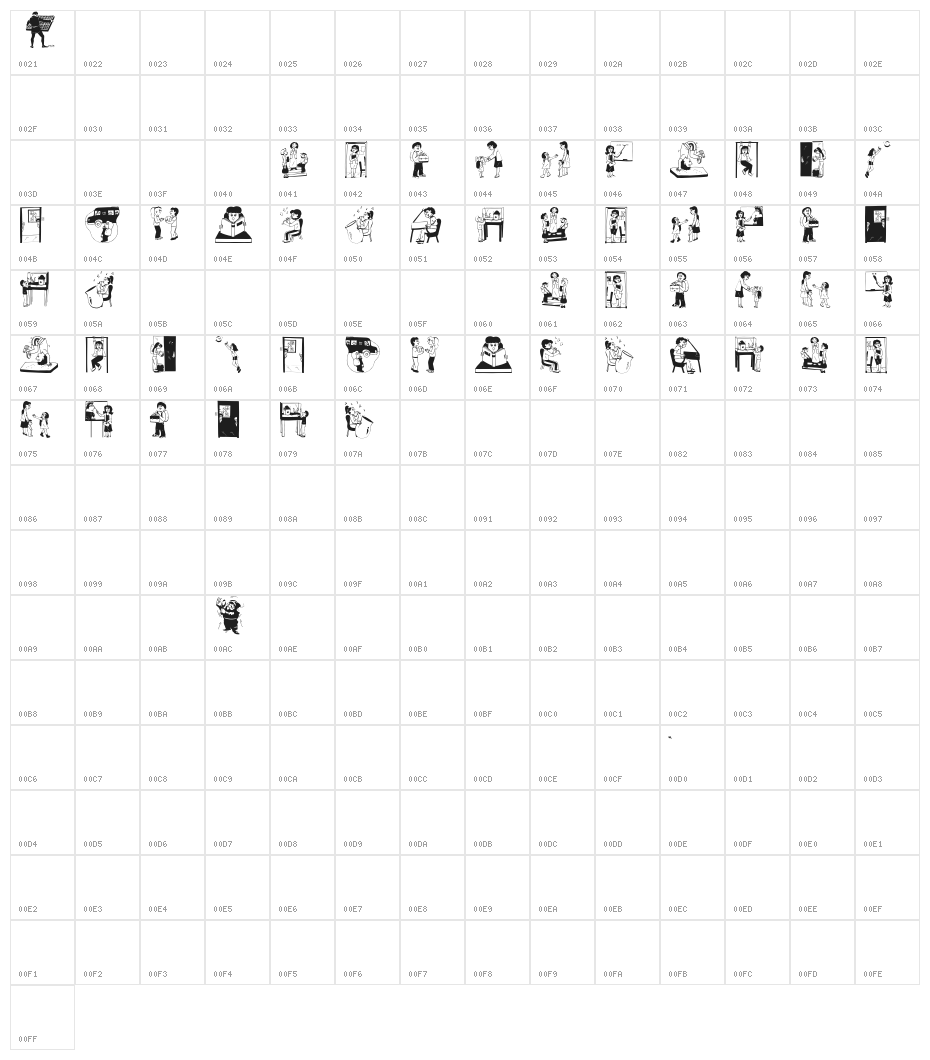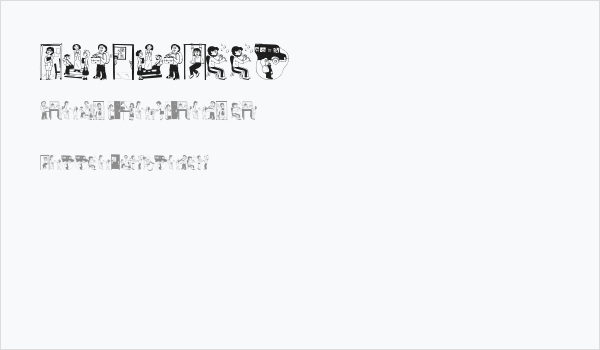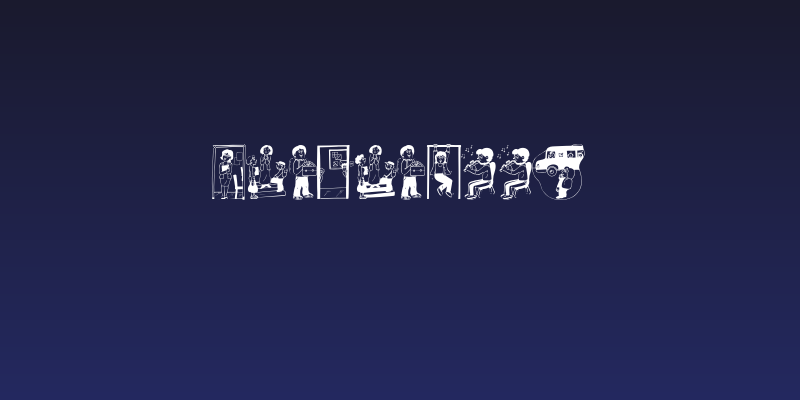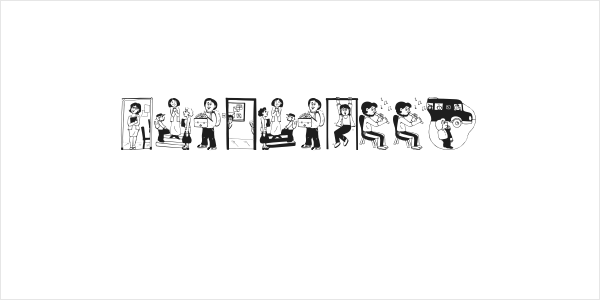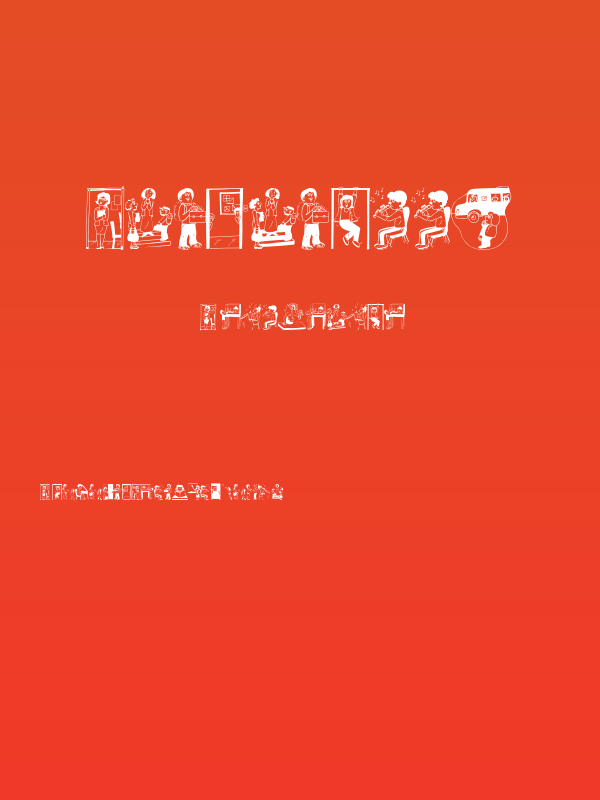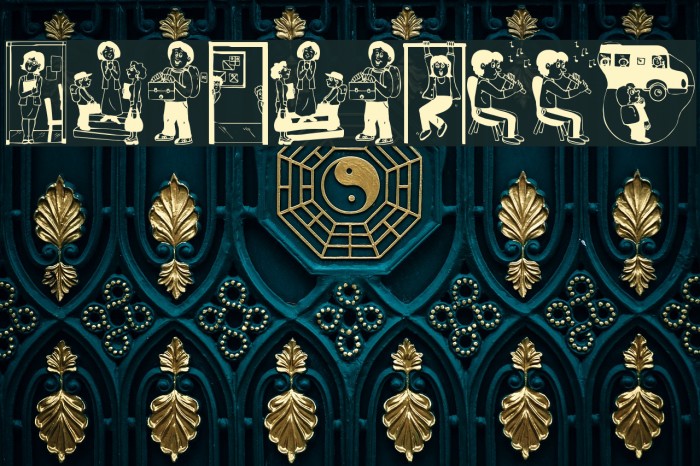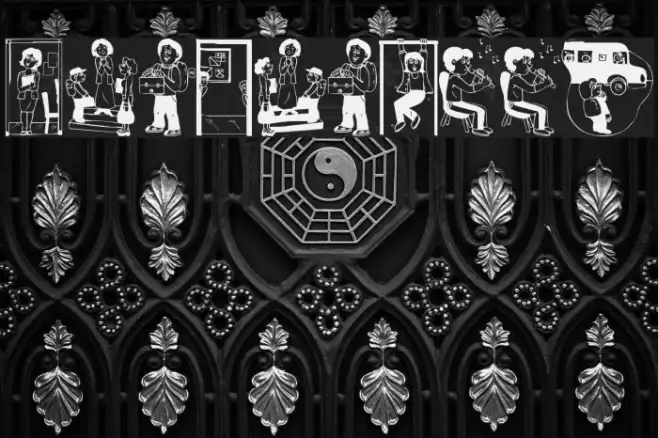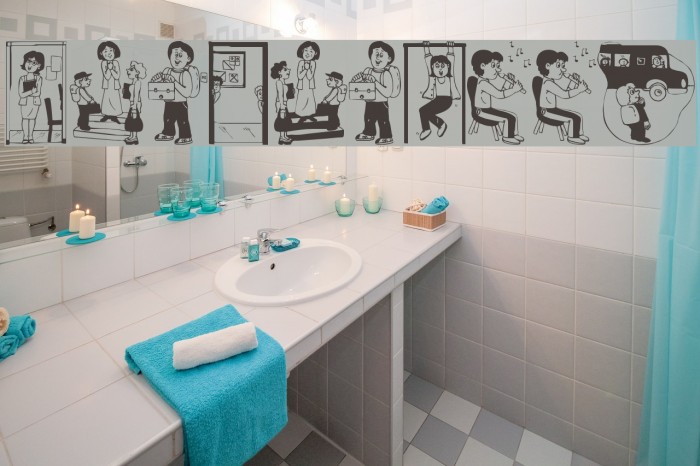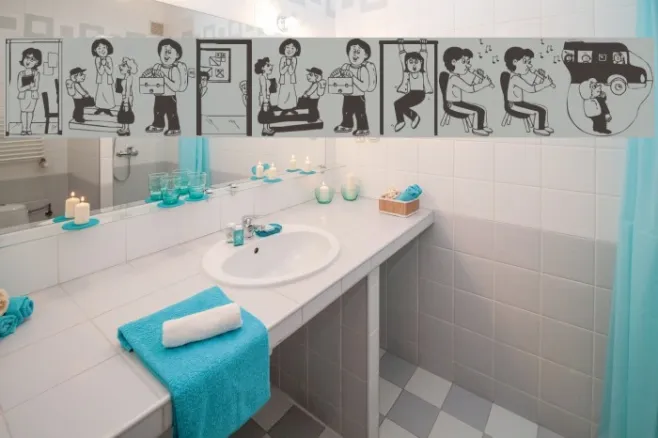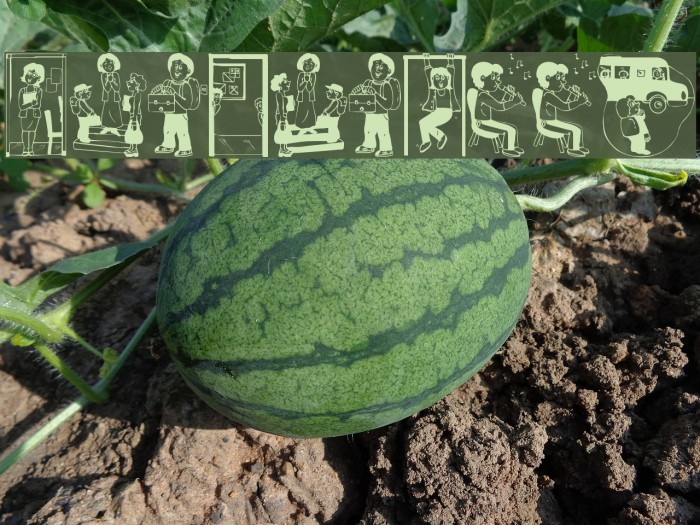
Back2School Font
Back2School Description
| Overall Style | Playful, Illustrative, Whimsical |
| Use Case | Headlines, Posters, Educational materials, Themed graphics |
| Proposed Projects | Children's books, educational posters, school event invitations, playful branding, classroom decor. |